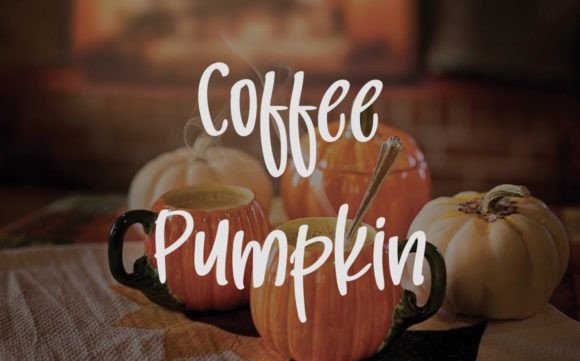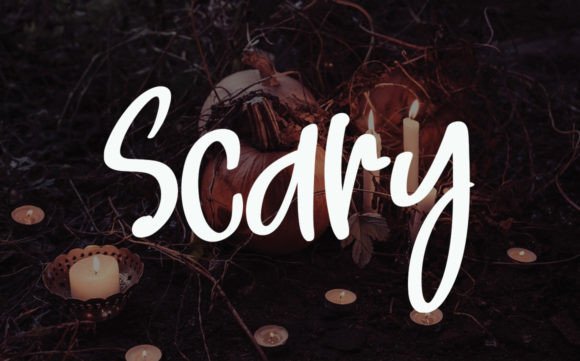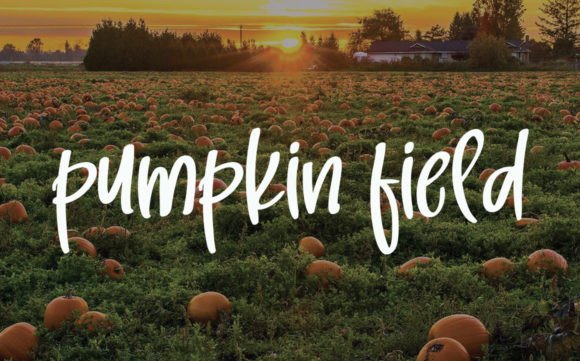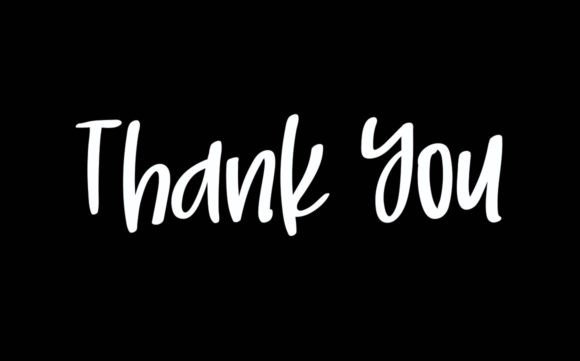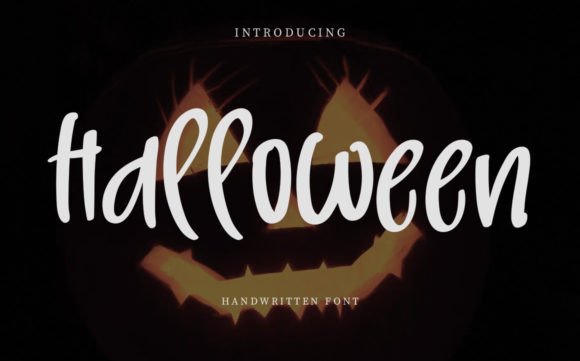
Unleash the Spooky Spirit: Exploring the Versatility of Halloween Font
Halloween is just around the corner, and with it comes the excitement of creating spooky and fun designs for various projects. Whether you’re a designer, crafter, or simply a DIY enthusiast, having the right font can make all the difference in bringing your ideas to life. This is where the Halloween Font comes in – a cool, simple, and playful handwritten font that’s incredibly versatile and sure to elevate your designs to new heights.
The Characteristics of Halloween Font
The Halloween Font is a unique and eye-catching typeface that’s specifically designed to capture the essence of the spookiest time of the year. Its handwritten style gives it a personal and playful touch, making it perfect for a wide range of applications, from party invitations and decorations to digital graphics and social media posts.
One of the standout features of the Halloween Font is its simplicity. Unlike other fonts that may be overly ornate or complicated, this font is easy to read and understand, making it accessible to a broad audience. At the same time, its playful nature adds a touch of whimsy and fun, ensuring that your designs will stand out from the crowd.
The Versatility of Halloween Font
The Halloween Font is incredibly versatile, making it suitable for a wide pool of designs. Whether you’re creating:
• Party invitations and decorations: Use the Halloween Font to create spooky and fun invites, banners, and decorations that will set the tone for your Halloween party.
• Digital graphics: Add a touch of Halloween spirit to your social media posts, blog graphics, and other digital content with this font.
• Craft projects: Use the Halloween Font to create personalized crafts, such as pumpkin carvings, Halloween cards, and other DIY projects.
• Branding and marketing materials: This font can also be used to create eye-catching branding and marketing materials, such as logos, brochures, and flyers.
The Halloween Font is sure to make your designs come alive and leave a lasting impression on your audience.
Why Choose Halloween Font?
So, why choose the Halloween Font over other fonts? Here are just a few reasons:
• Easy to read: The Halloween Font is clear and easy to read, making it perfect for designs where legibility is key.
• Playful and fun: This font adds a touch of whimsy and fun to your designs, making them perfect for Halloween-themed projects.
• Versatile: The Halloween Font can be used for a wide range of applications, from digital graphics to craft projects.
• Unique: This font has a unique and eye-catching style that’s sure to make your designs stand out from the crowd.
Tips for Using Halloween Font
To get the most out of the Halloween Font, here are a few tips to keep in mind:
• Experiment with different colors: Try pairing the Halloween Font with different colors to create a unique and eye-catching design.
• Mix and match: Combine the Halloween Font with other fonts to create a unique and interesting design.
• Play with textures and patterns: Add texture and interest to your design by incorporating different textures and patterns.
The Halloween Font is a cool, simple, and playful handwritten font that’s perfect for adding a touch of spooky spirit to your designs. Its versatility, ease of use, and unique style make it an excellent choice for designers, crafters, and DIY enthusiasts alike. Whether you’re creating party invitations, digital graphics, or craft projects, this font is sure to elevate your designs to new heights and make them come alive. So why wait? Add the Halloween Font to your favorite creative ideas and get ready to unleash the spooky spirit!